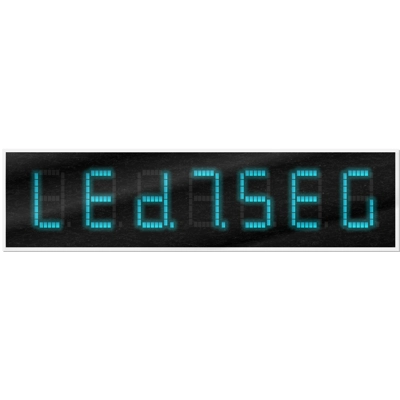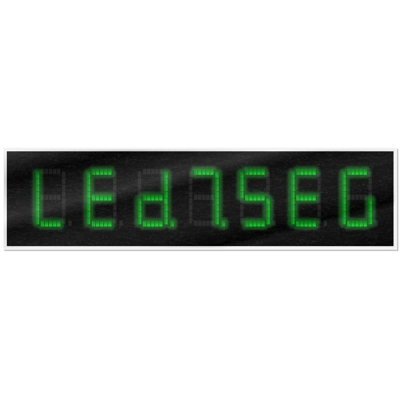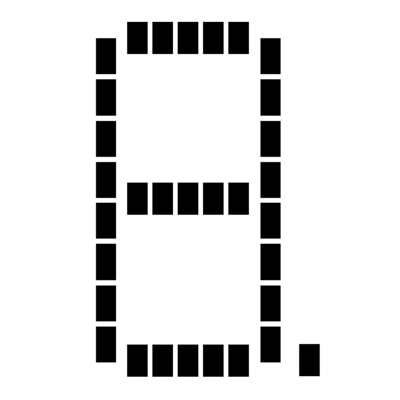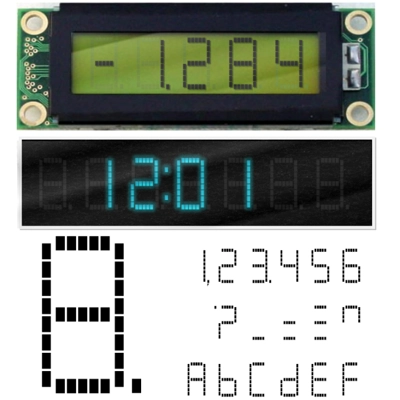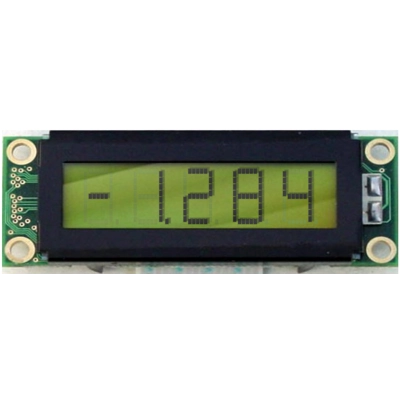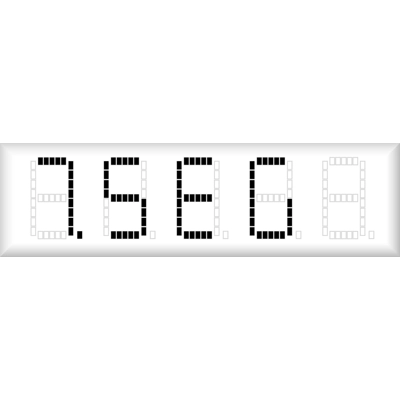
AF-LED7-Seg-dots1 - Font for Electronic LCD LED Display
Fonts for when you need the most realistic looking electronic display.
The main advantages of these fonts are:
• Extremely realistic representation of real electronic displays
• Spacing between characters does not change when entering a decimal point or colon between them
• Custom characters can be produced by selecting any combination of segments to be displayed
Low cost electronic displays have a fixed number of segments that can be turned on or off to represent different symbols. A digital watch would be the most common example.
Fonts typically available for depicting electronic displays are often in the artistic style of these common LED or LCD displays. They provide the look-and-feel, but fall short when technical accuracy is required. Failure to represent an accurate and consistent representation of the real thing can be a cringe-worthy experience for the product design and marketing team, or even the hobbyist for that matter.
To solve this problem, FortuneFonts has released a range of fonts that accurately depict the displays typically found on low cost electronic devices: watches, answering machines, car stereos, alarm clocks, microwaves and toys. These fonts come with numbers, letters and symbols predefined. However, they also allow you to create your own segment combinations for the custom symbols you need.
When producing manuals, marketing material and user interfaces, accuracy is an all-or-nothing concept.